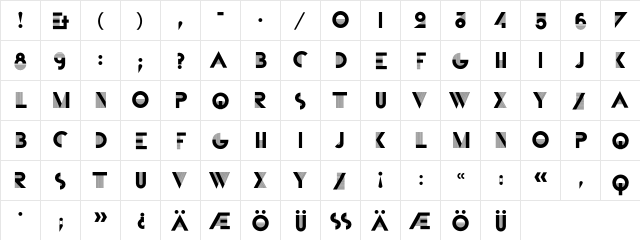
CassandreEF Initials
Design Context for CassandreEF Typeface
CassandreEF is a composed and adaptable typeface that performs quietly and consistently across a wide range of design contexts.